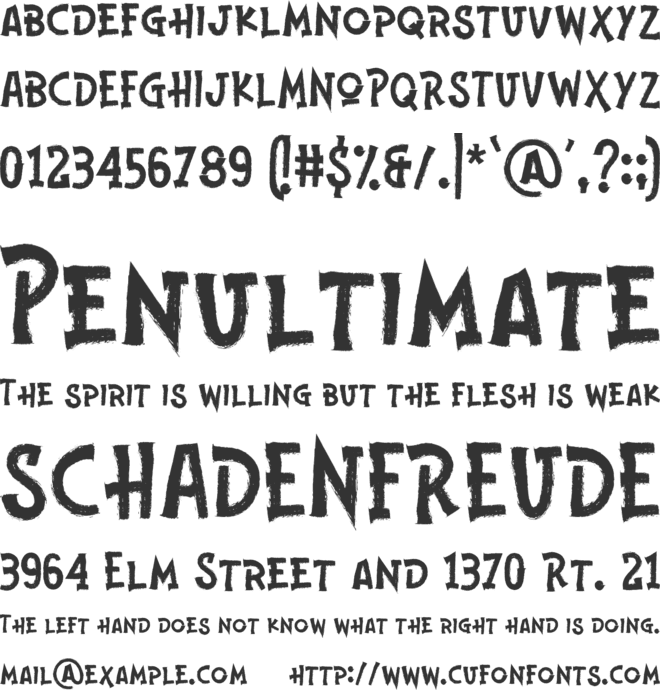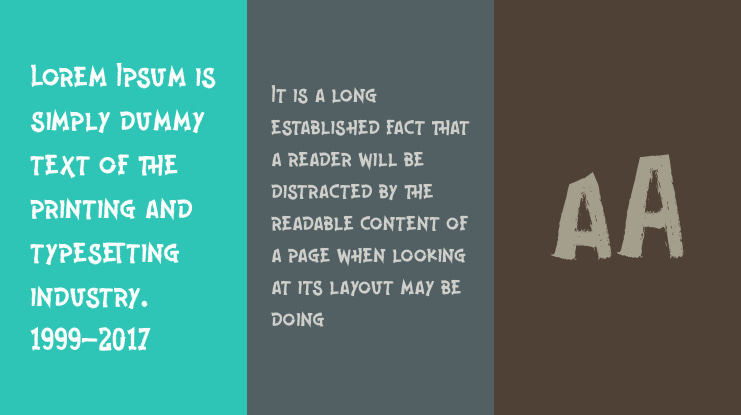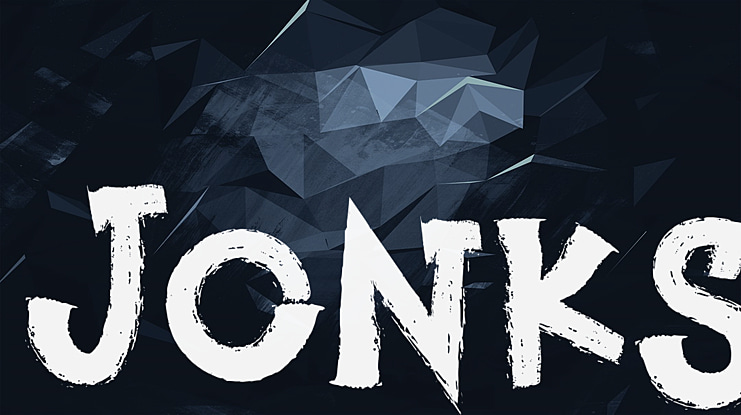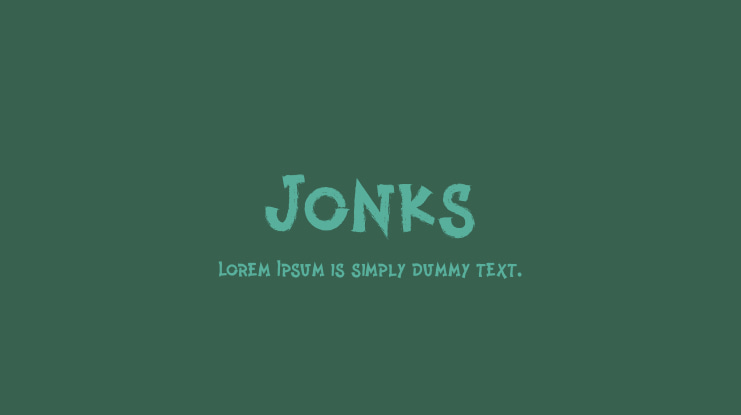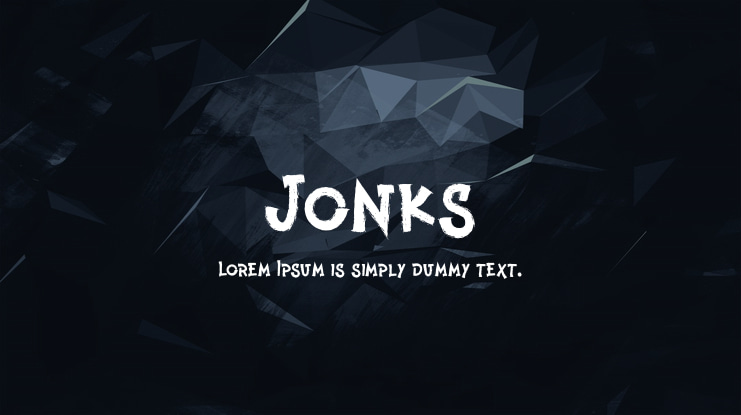
Jonks Font
Jonks is a daring, rough textured and brush display font. It has powerful yet cheerful feel. No matter the topic, this font will be an incredibly asset to your fonts’ library, as it has the potential to elevate any creation.Full Version Download Here :https://typefactory.co/product/jonks-a-brush-display-font/https://www.creativefabrica.com/product/jonks/ref/501262/